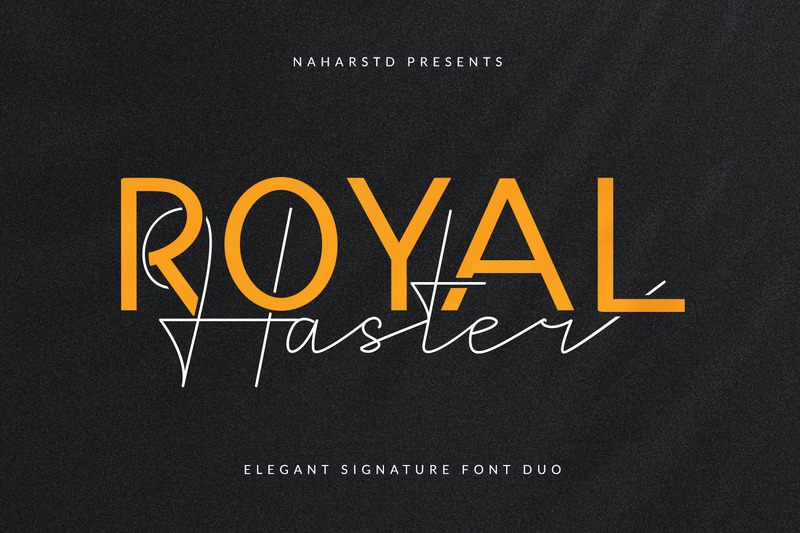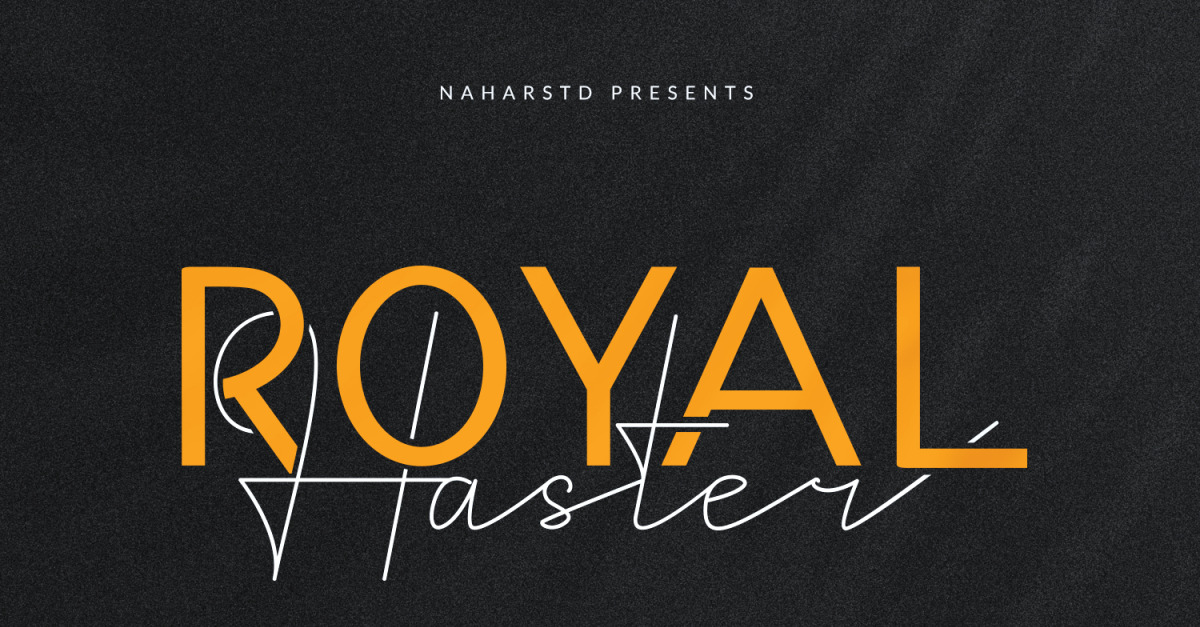
Royal Haster - Duo Font
Royal Haster is a Elegant Signature Font Duo, will be suitable for crafting and any projects such as logos, branding projects, homeware designs, product packaging, mugs, quotes, posters, shopping bags, t-shirts, book covers, name card, invitation cards, greeting cards, wedding, wedding invitation, label, photography, watermark, special events, and all your other lovely projects that need beautiful calligraphy taste.
Features :
- Uppercase & Lowercase
- Numerals
- Punctuations (OpenType Standard)
- Accents (Multilingual Characters)
- Ligatures and Alternative Style Stylistic Set